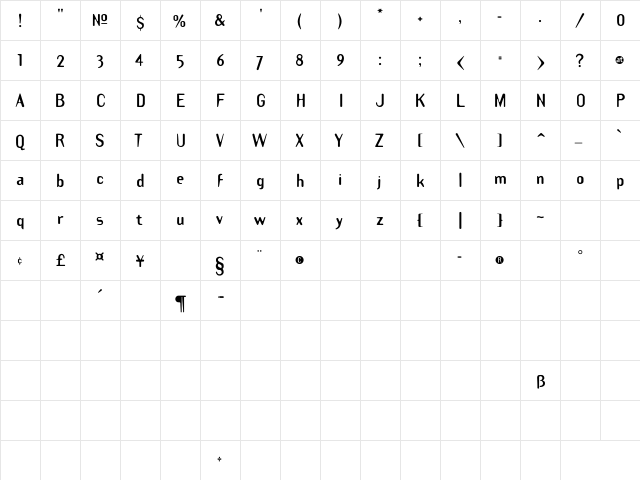
Draft Plate Black
Design Context for Draft Plate Typeface
Draft Plate offers clean, dependable letterforms without strong stylistic allegiance, making it a practical choice for designers who need flexibility.